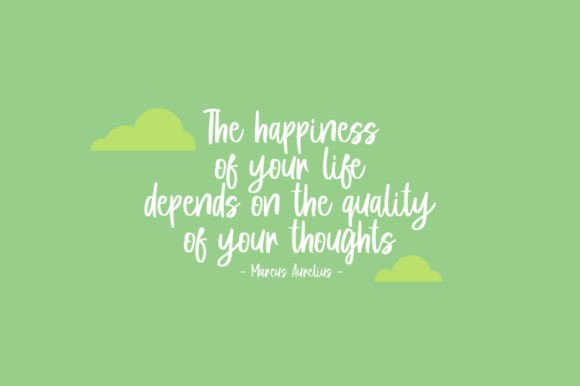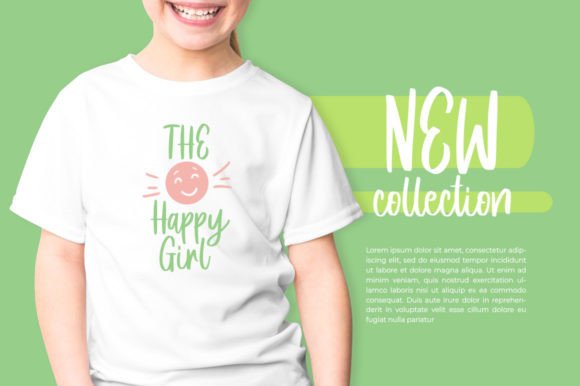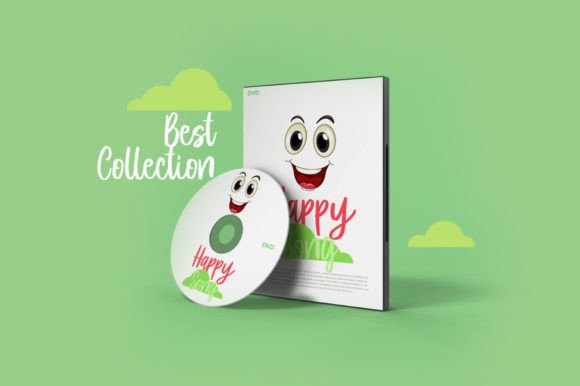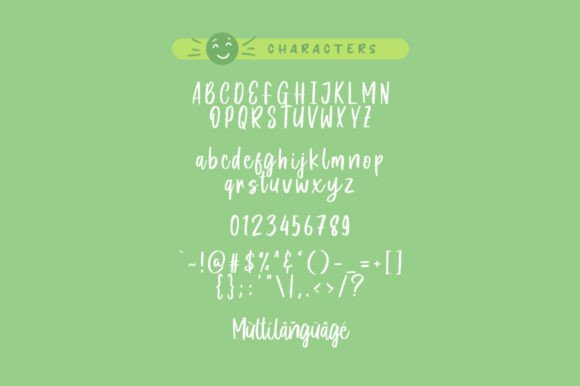
Celery Smile Font: The Perfect Playful Calligraphy Script for Your Designs
Are you a designer or crafter looking for a font that can add a playful touch to your creations? Look no further than the Celery Smile Font! This cool and friendly calligraphy script font is perfect for cartoon-related designs, children’s games, and any other project that requires a fun and youthful vibe.
What is Celery Smile Font?
Celery Smile Font is a unique and charming calligraphy script font that is designed to bring a smile to your face. Its playful and carefree style makes it an ideal choice for designers and crafters who want to add a touch of whimsy to their work. Whether you’re creating a logo, a poster, or a digital graphic, this font is sure to make your design stand out.
Key Features of Celery Smile Font
So, what makes Celery Smile Font so special? Here are some of its key features:
- Playful and Friendly Style: Celery Smile Font has a fun and approachable style that is perfect for designs that require a playful touch.
- Calligraphy Script: This font features a beautiful calligraphy script style that adds a touch of elegance and sophistication to your designs.
- Cool and Trendy: Celery Smile Font is a cool and trendy font that is perfect for designers and crafters who want to create modern and stylish designs.
- Versatile: This font is versatile and can be used for a wide range of design projects, from cartoon-related designs to children’s games and more.
Uses of Celery Smile Font
So, what can you use Celery Smile Font for? The possibilities are endless! Here are some ideas to get you started:
- Cartoon-Related Designs: Celery Smile Font is perfect for cartoon-related designs, such as character logos, posters, and digital graphics.
- Children’s Games: This font is also great for children’s games, such as puzzles, activity sheets, and educational materials.
- Playful Logos: Celery Smile Font can be used to create playful and fun logos for businesses, products, or services.
- Social Media Graphics: This font is perfect for creating social media graphics, such as Facebook posts, Instagram stories, and Twitter headers.
- Crafting Projects: Celery Smile Font can also be used for crafting projects, such as card making, scrapbooking, and DIY decor.
Why Choose Celery Smile Font?
So, why should you choose Celery Smile Font for your designs? Here are some reasons:
- Unique Style: Celery Smile Font has a unique and charming style that will make your designs stand out.
- Easy to Read: This font is easy to read, even at small sizes, making it perfect for digital graphics and print materials.
- High-Quality: Celery Smile Font is a high-quality font that is designed to deliver exceptional results.
- Versatile: This font is versatile and can be used for a wide range of design projects.
In conclusion, Celery Smile Font is a cool and friendly calligraphy script font that is perfect for designers and crafters who want to add a playful touch to their creations. With its unique style, versatility, and high-quality design, this font is sure to become a favorite in your design arsenal. So why wait? Download Celery Smile Font today and start creating playful and fun designs that will bring a smile to people’s faces!